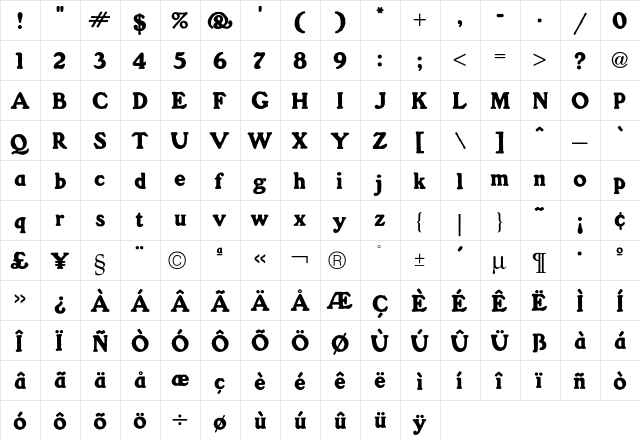
Gorilla ICG
Design Context for Gorilla Typeface
Gorilla is a composed and adaptable typeface that performs quietly and consistently across a wide range of design contexts.